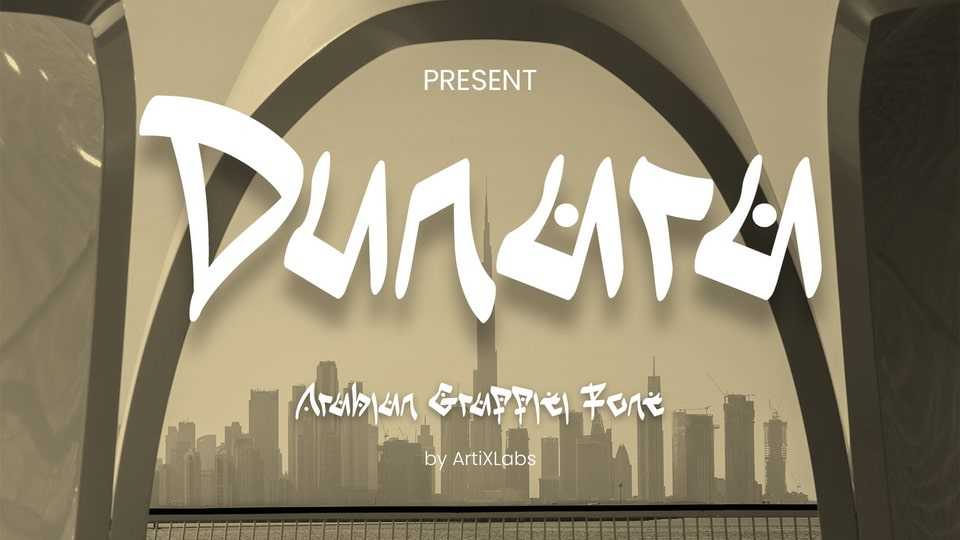
Download Introducing Dunara font, Arabian style graffiti typeface. This font template contains street, expressive, wild, creative, professional and unique concept.